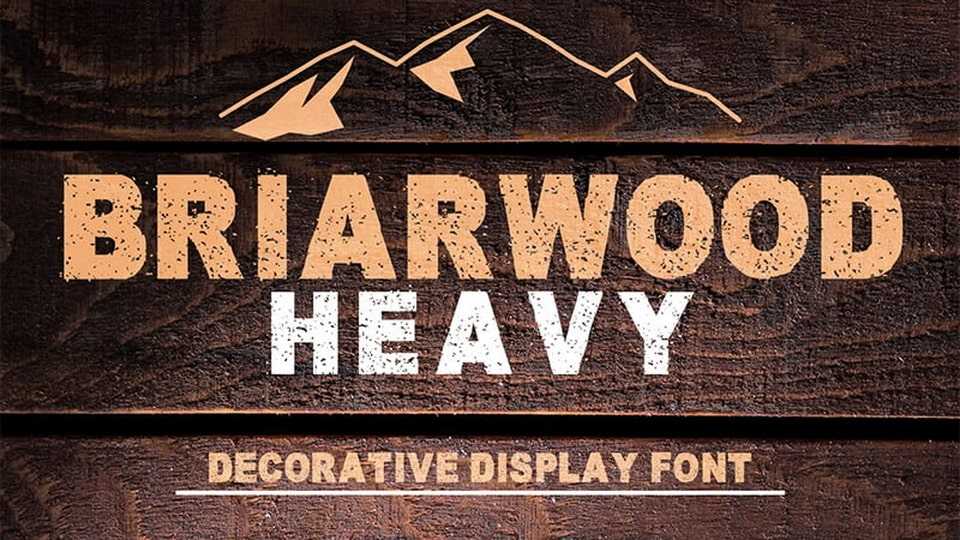
Download Briarwood Heavy font, a rough, textured sans serif typeface. It’s an all-caps font that’s ideal for headlines, posters, apparel, and other designs that need a bold, grungy look.